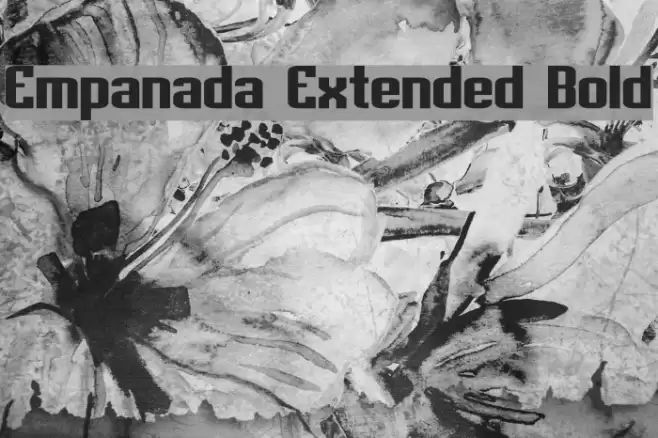
Empanada Extended Bold Font
Empanada Extended Bold Description
This font features a bold and extended style with a modern and geometric appearance. The characters are wide and have a strong presence, making them ideal for attention-grabbing designs. The uppercase and lowercase letters maintain a consistent height, contributing to a uniform look. The numerals are equally bold, ensuring readability and impact. Special characters are included, adding versatility for various design needs. The overall design is clean and structured, with a focus on clarity and strength.
A bold, extended, and geometric font with a modern style from Uncategorized fonts.
- Proposed Projects: Ideal for headlines, posters, branding, and any project requiring a strong visual impact.
- Width: Expanded